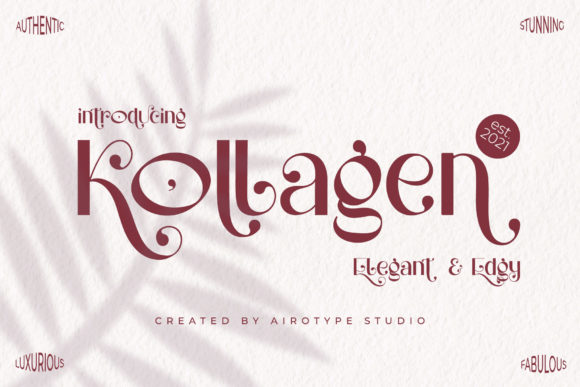
Sail away into the realm of visual enchantment with Kollagen Font, a masterpiece meticulously crafted for the modern designer. This exquisite display font, brought to life by the creative minds at Airotype, is more than just a collection of letters and symbols; it's an artistic voyage that will transform your design projects into captivating masterpieces.
Immerse yourself in the allure of Kollagen's carefully drawn characters, each stroke imbued with elegance and grace. Its PUA encoding grants you effortless access to a treasure trove of glyphs and swashes, empowering you to unleash your creativity and weave mesmerizing typographic tapestries.
With Kollagen Font as your creative compass, you'll navigate the vast sea of design possibilities with newfound confidence. Dive into a world where words dance with an ethereal charm, where every letter carries a story, and where your designs radiate an aura of sophistication and timeless beauty.
Picture your designs adorned with Kollagen's captivating curves, sweeping strokes, and intricate details. Imagine your boat lettering, posters, logos, branding, and social media graphics pulsating with life, leaving an indelible mark on the minds of your audience.
Kollagen Font is the ultimate expression of artistic freedom, perfectly suited for designers who dare to break the mold and forge their path. Its incredibly versatile style effortlessly adapts to a myriad of design aesthetics, from classic and elegant to contemporary and edgy. Whether you're a seasoned design professional or just starting your creative journey, Kollagen Font will be your trusted companion, guiding you towards design greatness.
So, hoist the sails of your imagination, embrace the boundless possibilities that await you, and let Kollagen Font be your guiding light as you embark on a voyage of exceptional design. Let your creativity find its haven in the enchanting embrace of this remarkable display font.